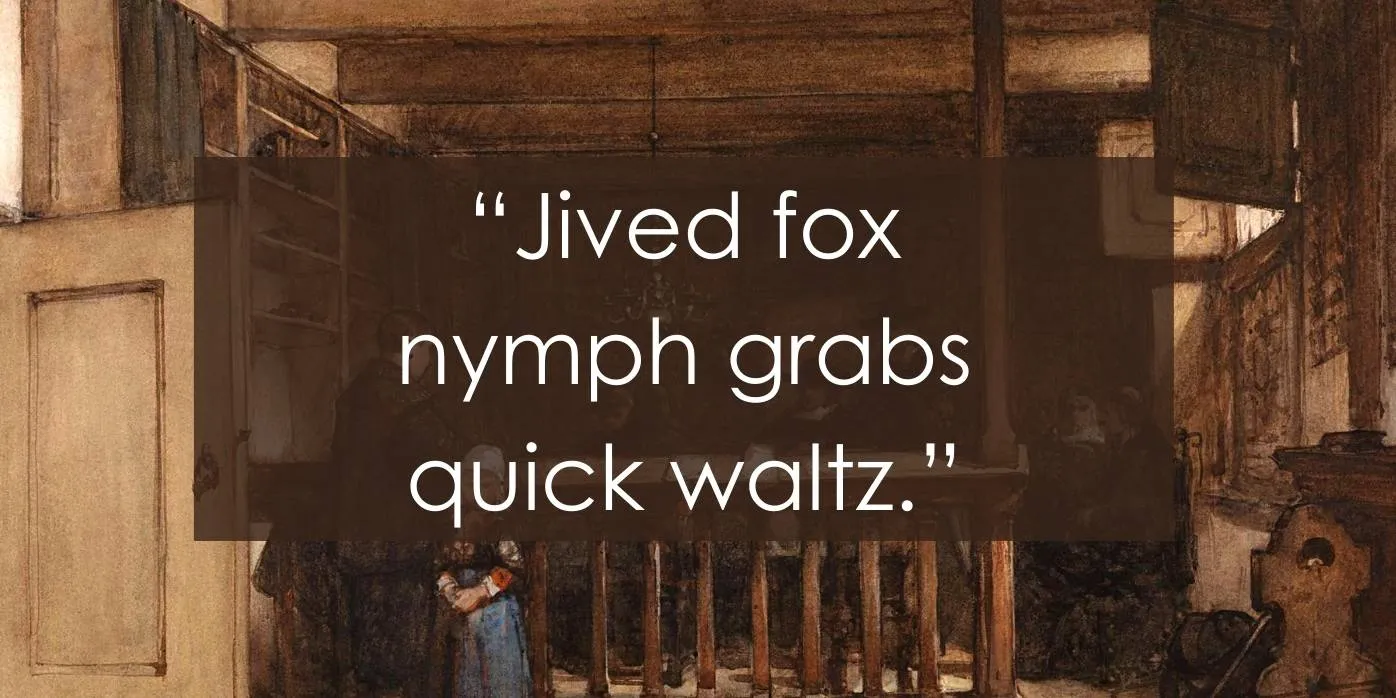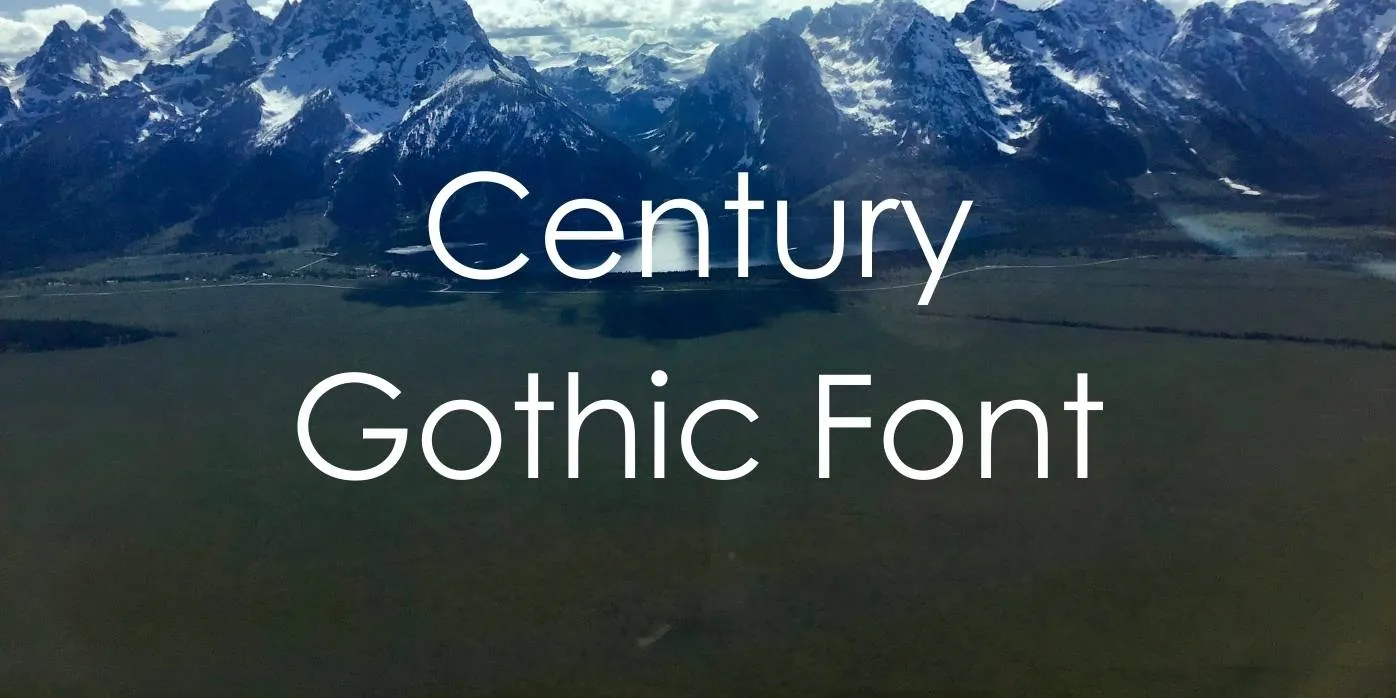
Century Gothic Font
Century Gothic Font Is developed by Sol Hess in Monotype Imaging Foundry. This typeface belongs to the Sans-Serif Font Family. This awesome Font is a popular font that is widely best for different fields. It gives an elegant and stylish look when used in the text.
This classy font has medium stroke contrast and features horizontally stretched letters. This marvelous font was designed for headlines, titles, and advertising copy in the early 1990s. Century Gothic Font is similar to other fonts such as Arial font and RBNO3.1 Font. This typeface is best for Adobe.
This typeface font is also licensed by Ascender Corporation. It also includes unique Glyphs and special characters. Some of the special characters that make it powerful are the following: Uppercase, Lowercase, icons, and so on. This tremendous Font includes an extra-large capital “I”, a small x-height, and wide letter spacing.